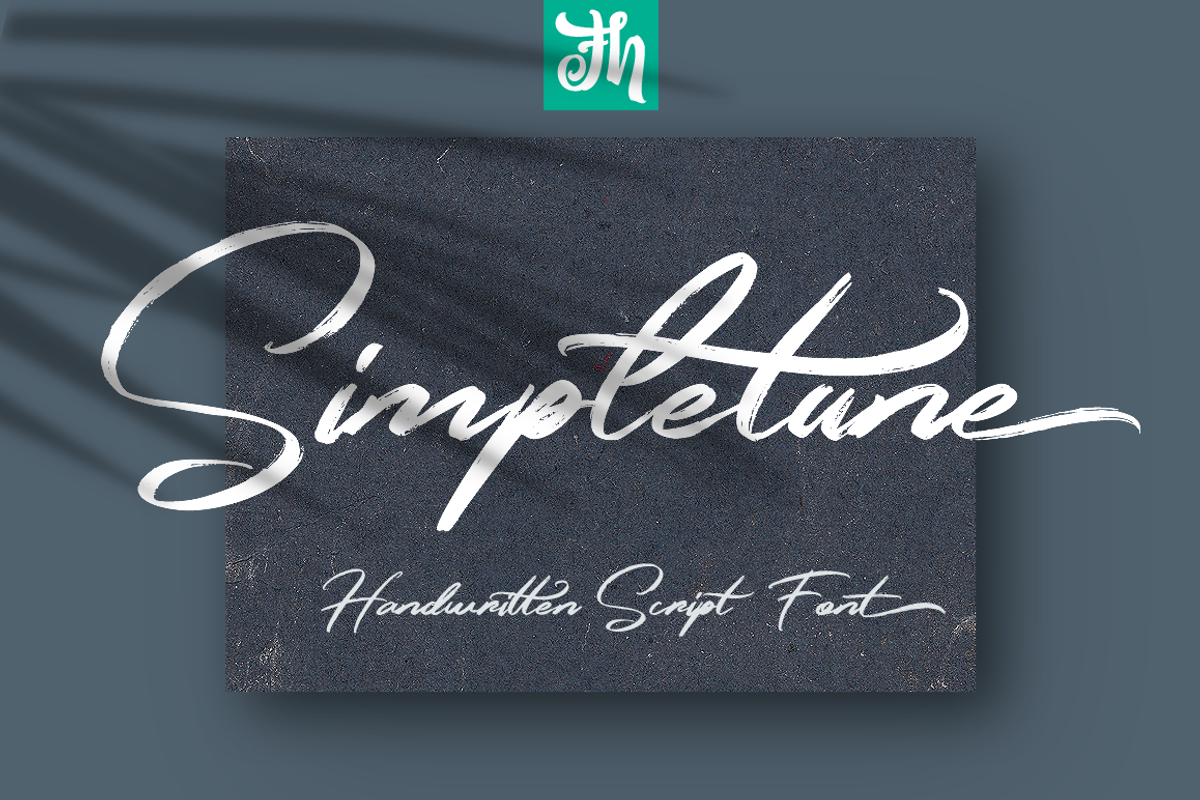
Simpletune – Handwritten Script Font Free Download is a charming and smooth script typeface that brings a touch of elegance and warmth to any design. With its flowing curves, natural rhythm, and casual handwriting style, this font is perfect for wedding invitations, logo design, social media graphics, quotes, stationery, and lifestyle branding.
Designed to feel personal yet polished, Simpletune – Handwritten Script Font Free Download adds authenticity and softness to your work while remaining highly legible. It’s ideal for designs that want to be stylish, approachable, and creative all at once.